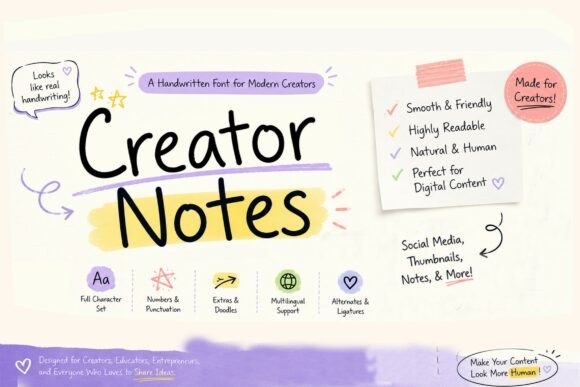
Creator Notes: The Handwritten Font for Modern Design
Practical Applications for Creators and Designers
Integrating a Font into Your Design Workflow
1. Evaluate Readability and Scalability: Test the font at various sizes. Creator Notes is noted for its high readability, but always ensure it performs well on both a large poster and a small mobile screen.
2. Maintain Consistency: Define clear rules for its use within your brand guidelines. Decide which contexts it suits best—like headlines or accent text—to maintain a cohesive professional presentation across all touchpoints.
3. Pair Thoughtfully: Combine it with a neutral, highly legible font for body copy. This contrast creates a dynamic visual composition and ensures your message remains clear and accessible.
4. Consider Your Audience: Align the font's personality with your target audience's expectations. Its modern, handwritten feel is perfect for creative industries, education, and lifestyle brands aiming for a direct, personal connection.